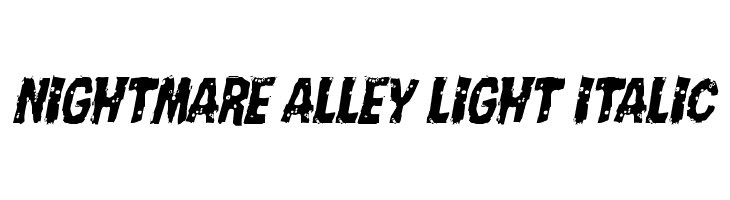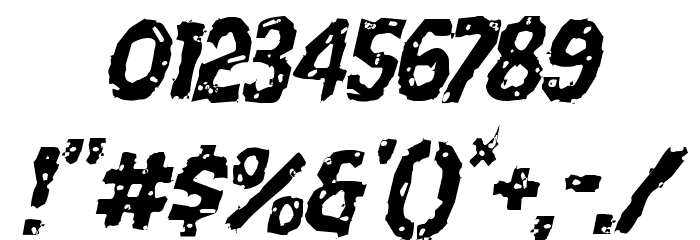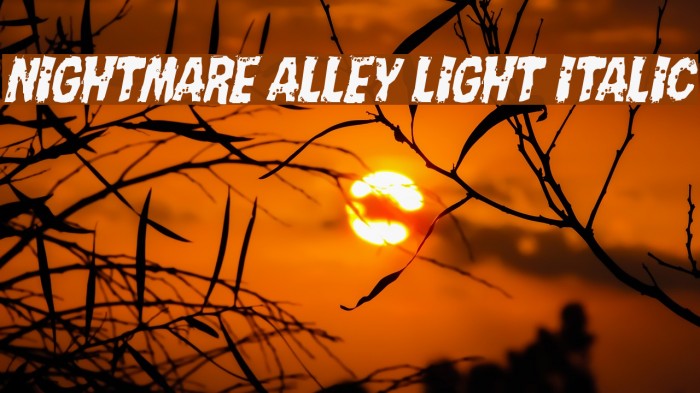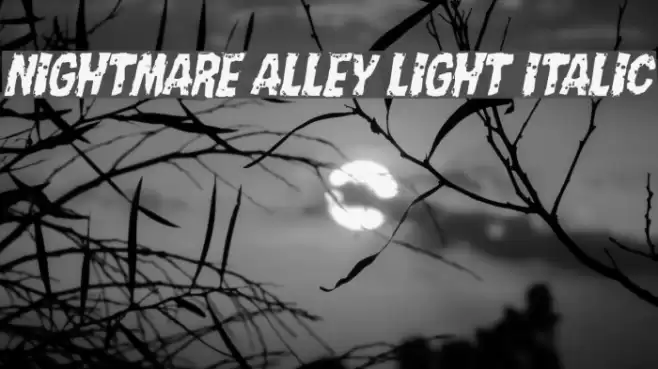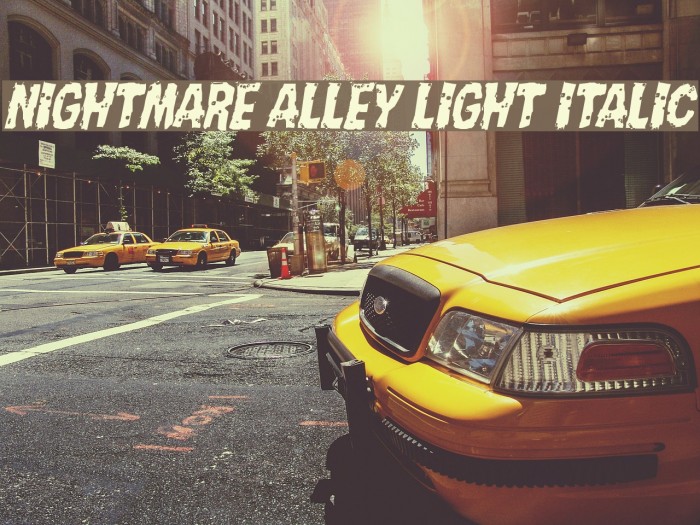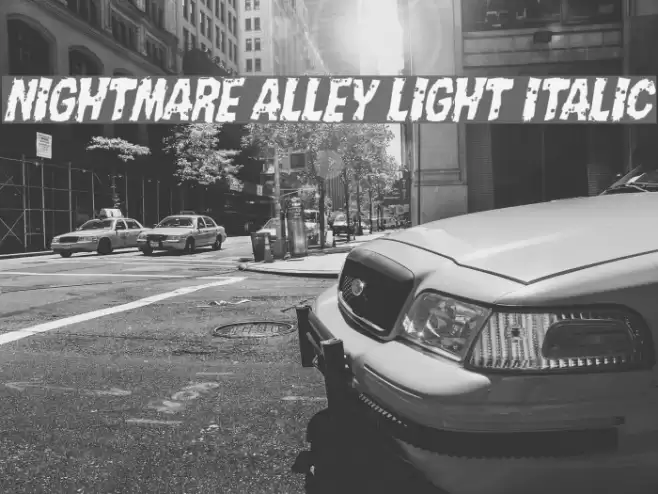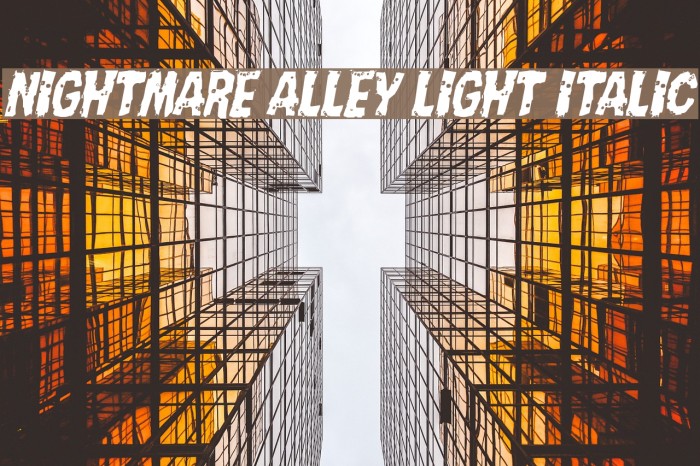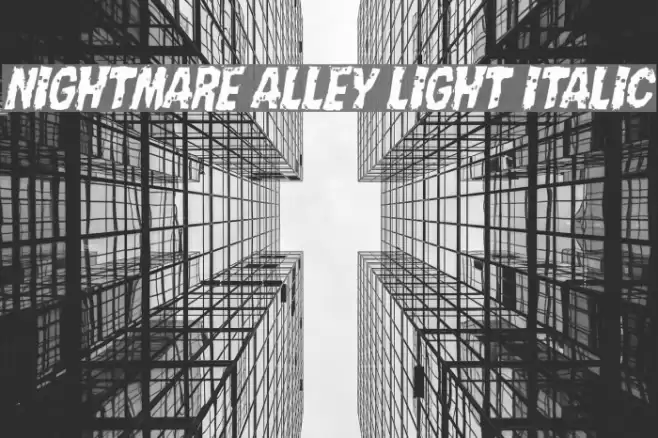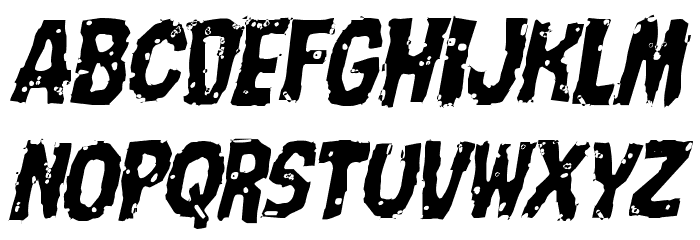
Nightmare Alley Light Italic Font
Nightmare Alley Light Italic Description
This font features a distressed, grunge style with a bold and rugged appearance. The characters are heavily textured, giving them a worn and weathered look, reminiscent of old, decaying signage or graffiti. The uppercase and lowercase letters maintain a consistent design, with jagged edges and irregular shapes that add to the chaotic aesthetic. The numerals and special characters follow the same theme, ensuring a cohesive appearance across all glyphs. This font's unique style makes it stand out, perfect for projects that require a raw, edgy feel.
| Overall Style | Grunge, Edgy, Distressed |
| Use Case | Headlines, Posters, Branding |
| Proposed Projects | Ideal for horror movie posters, album covers, edgy branding, and street art-inspired designs. |